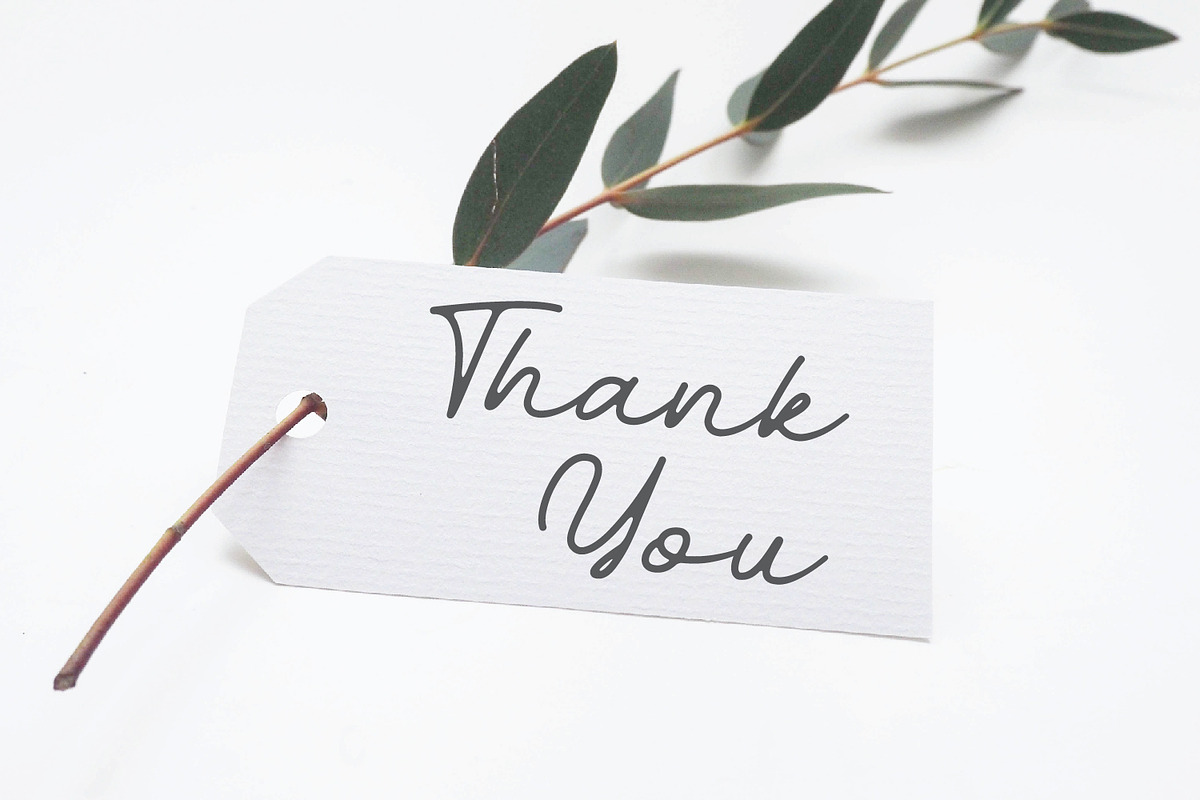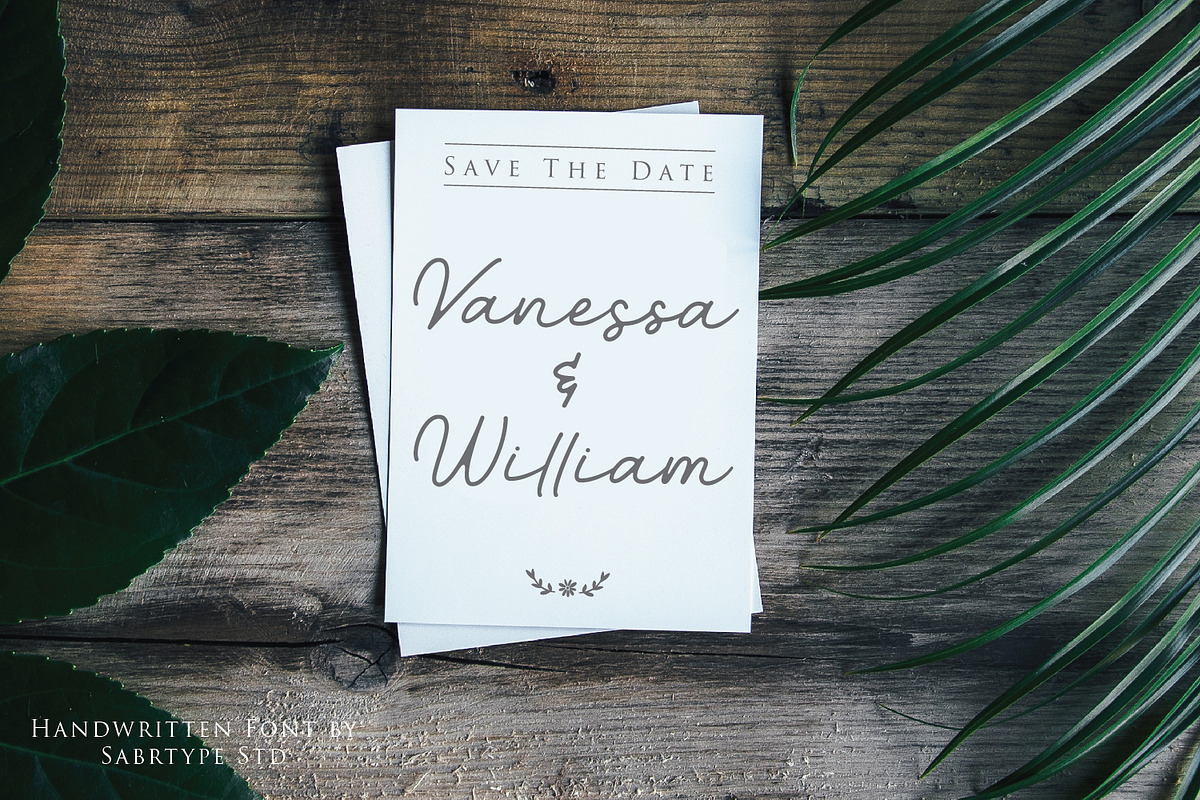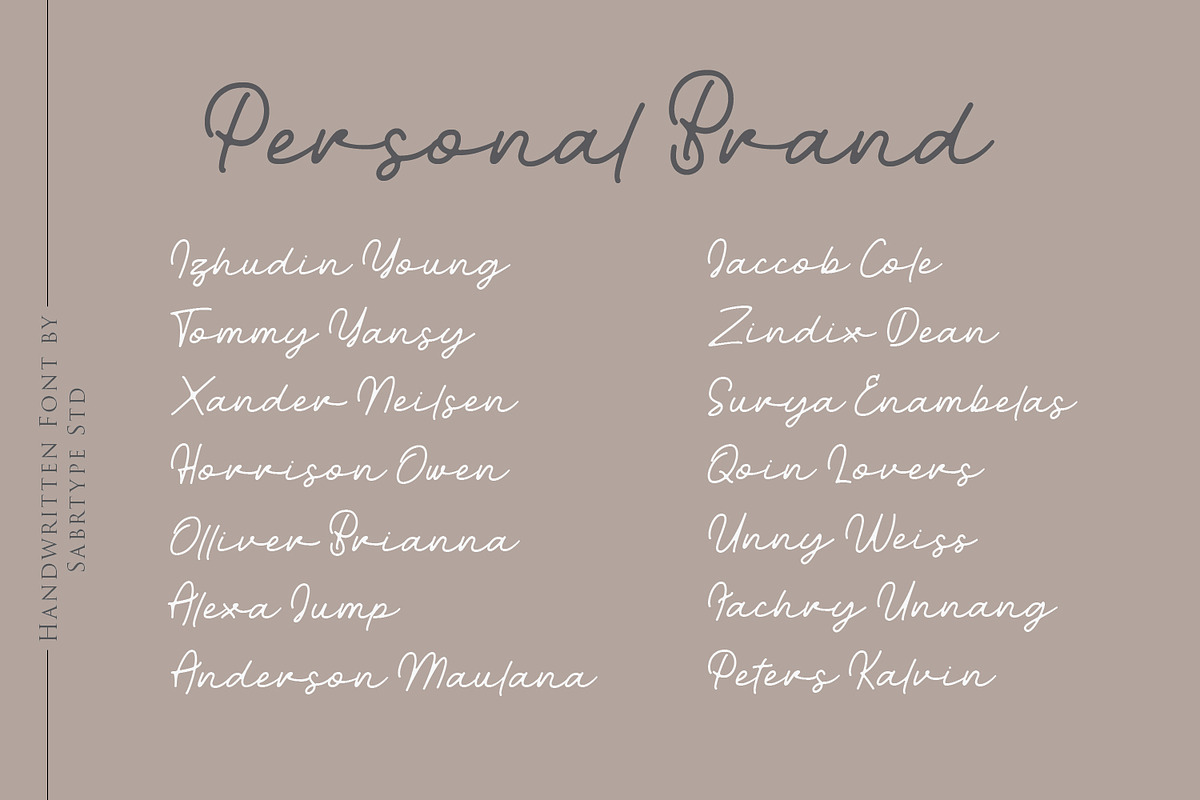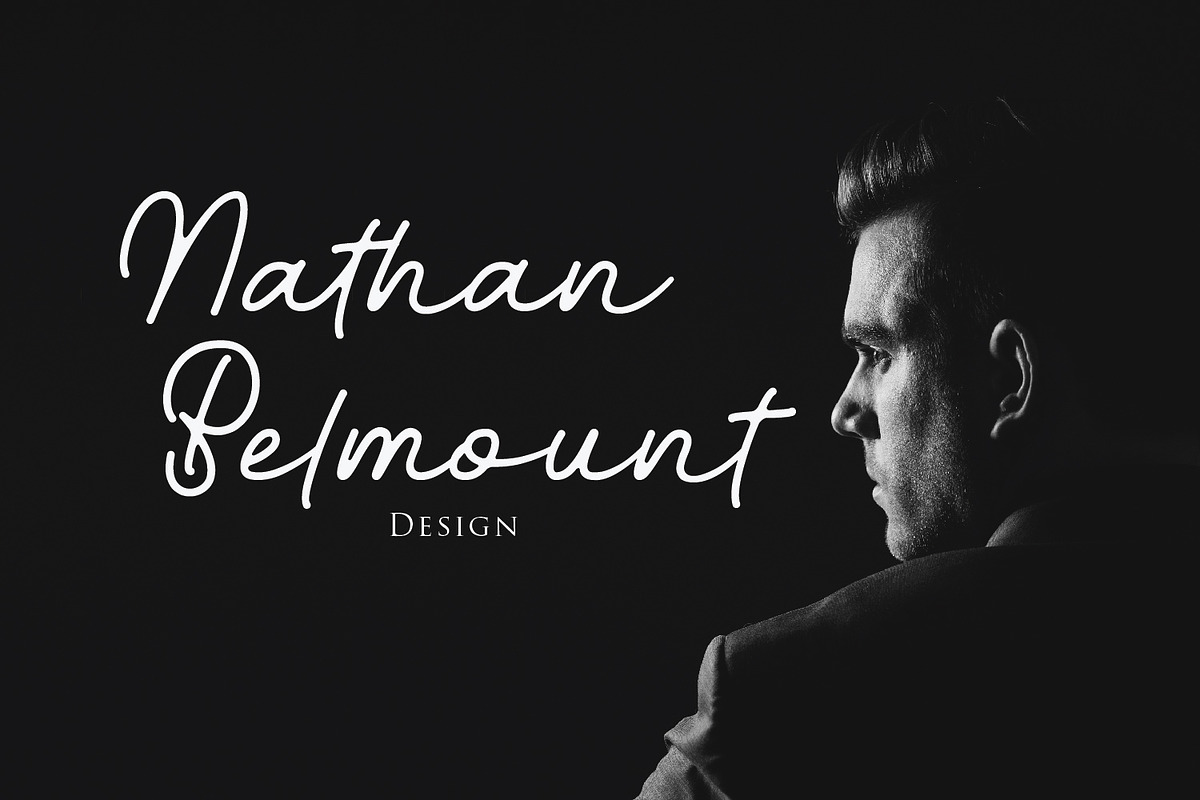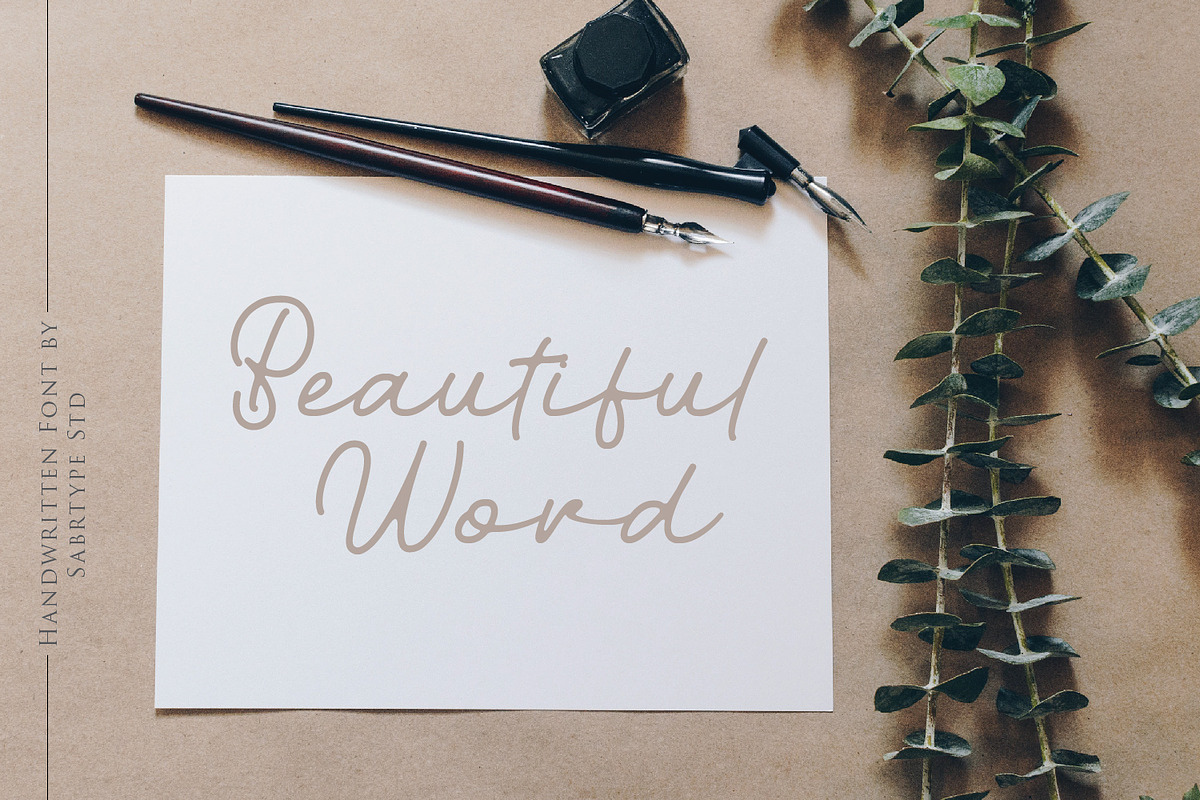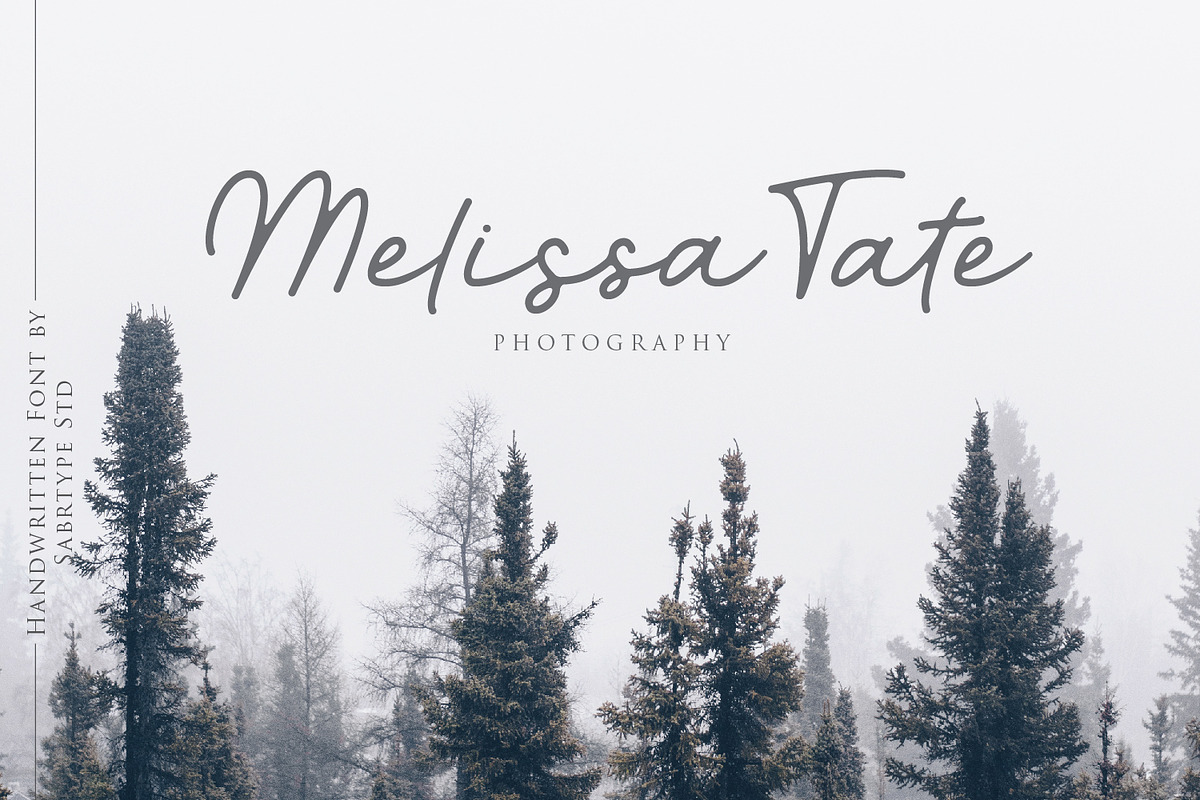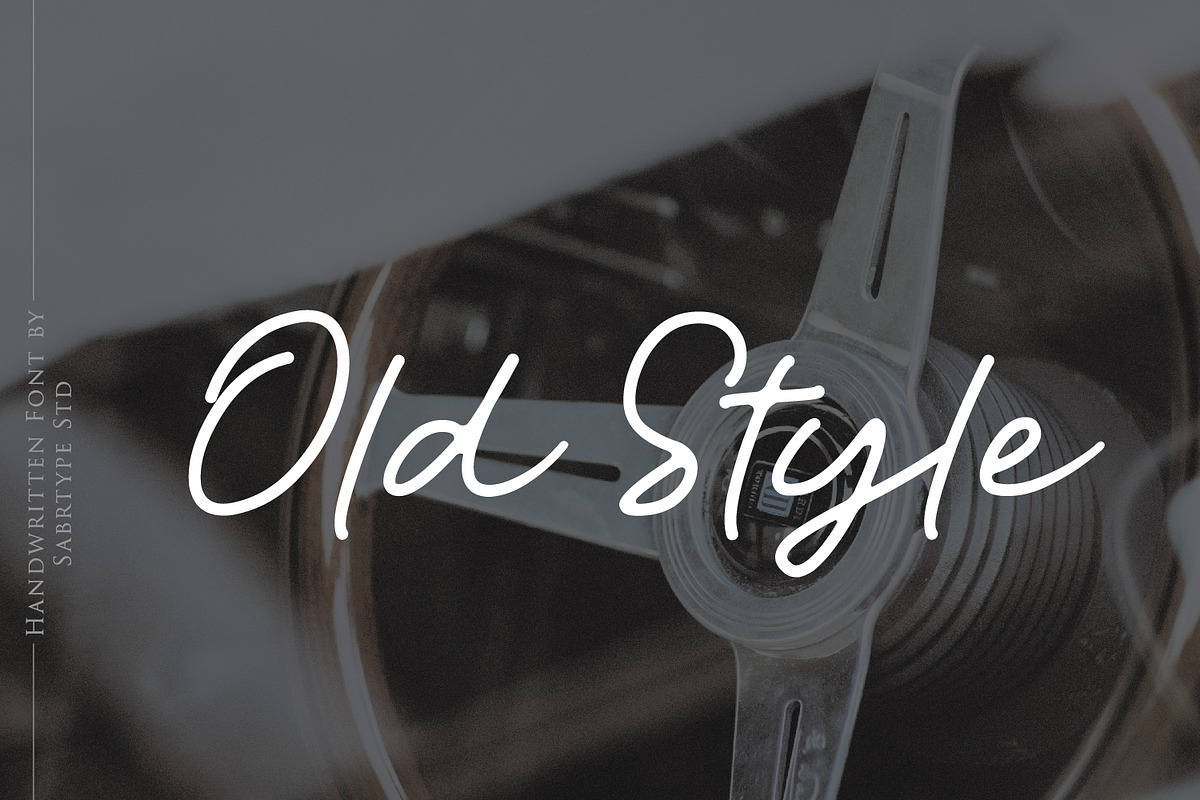
Walkway Font + Bonus Vector
Walkway Font is a handwritten signature script with a natural flow. Walkway would perfect for photography, watermark, social media posts, advertisements, logos & branding, invitation, product designs, label, stationery, wedding designs, product packaging, etc.
- Walkway Regular - with a full set of alternate characters